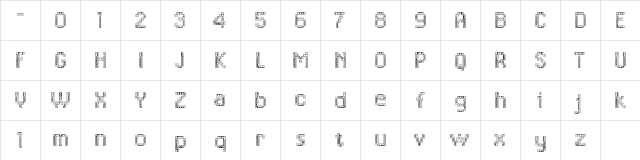
Letrix 2
DesignerMonica Rizzolli, Tony de Marco
Design Context for Letrix Typeface
Letrix is a composed and adaptable typeface that performs quietly and consistently across a wide range of design contexts.